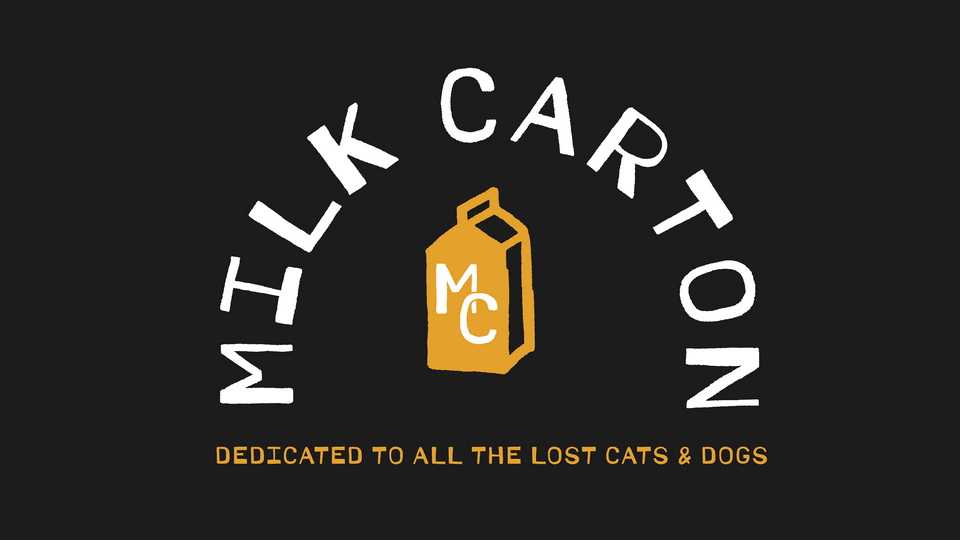
Download Milk Carton font, a handmade display typeface dedicated to all the lost cats and dogs. Milk Carton is perfect for posters, titles, t-shirts and other crafts.
Designer: Charlie Robinson